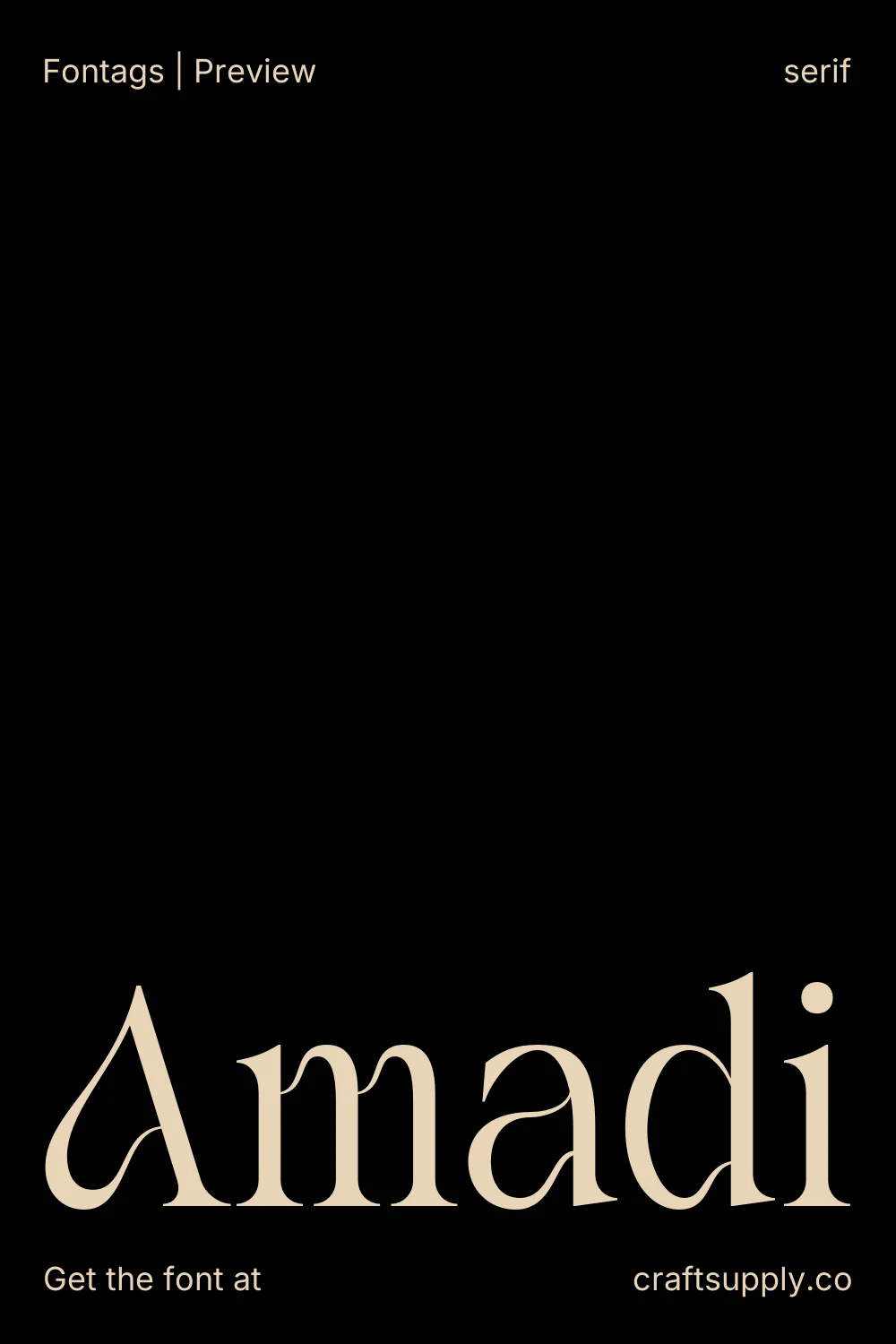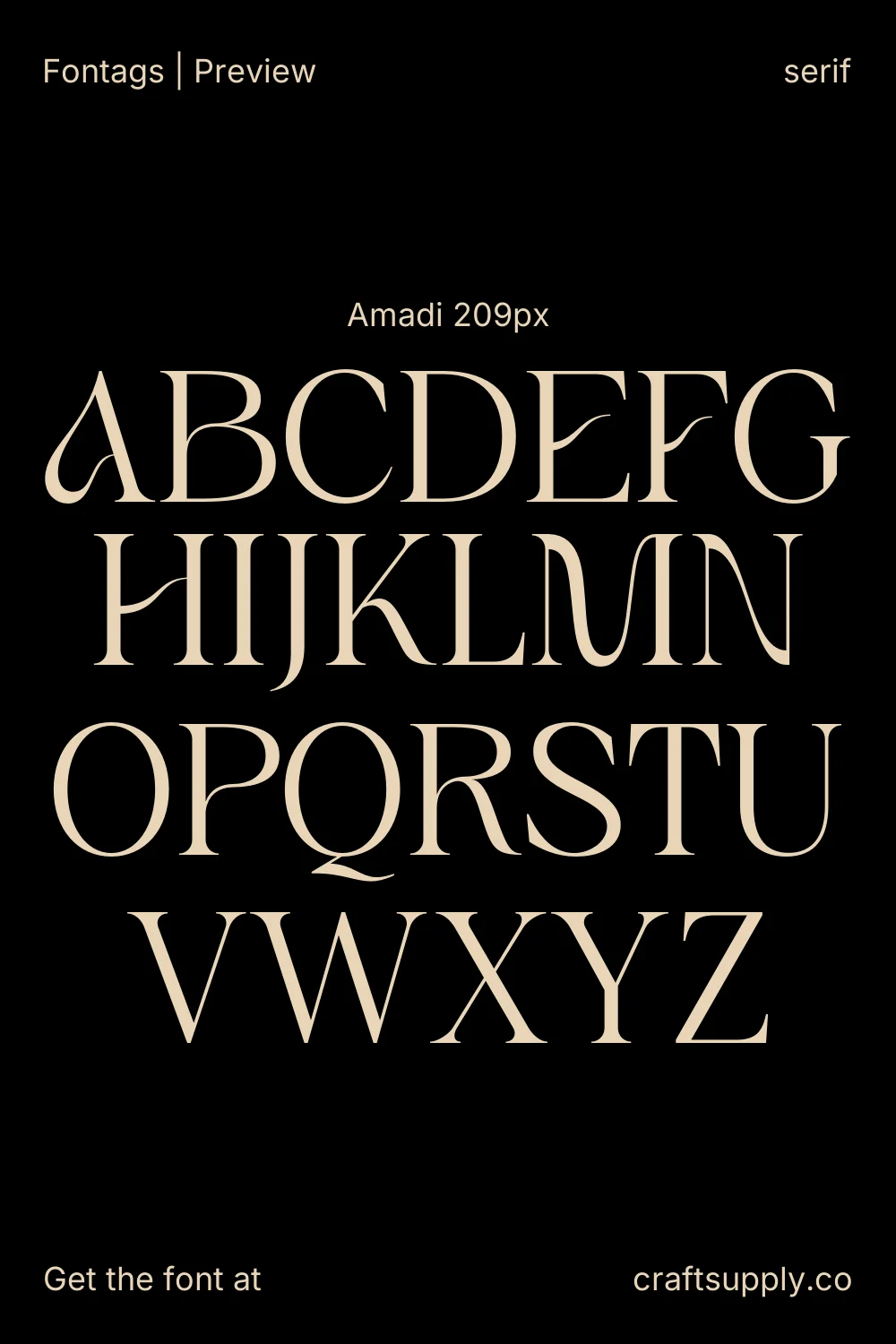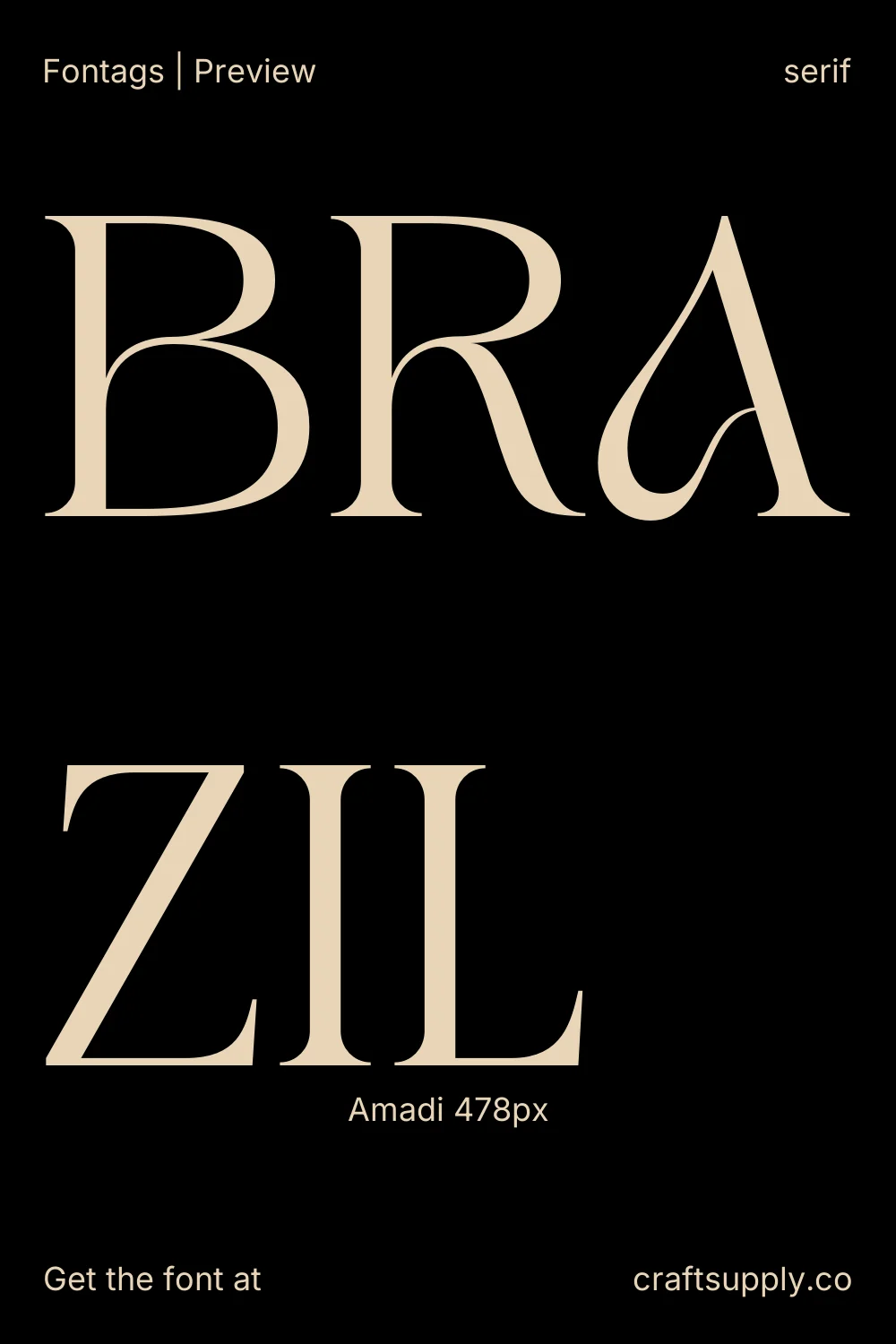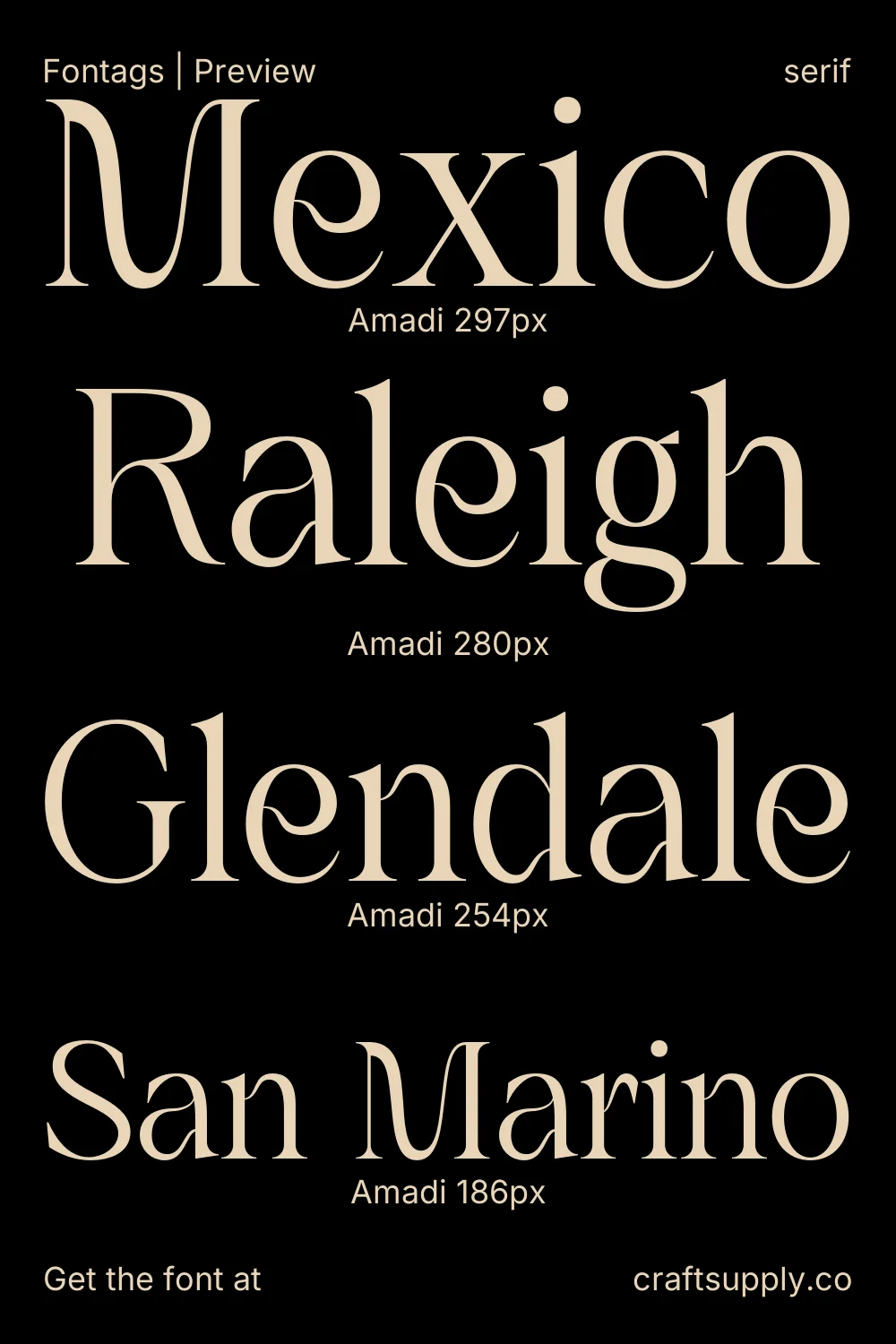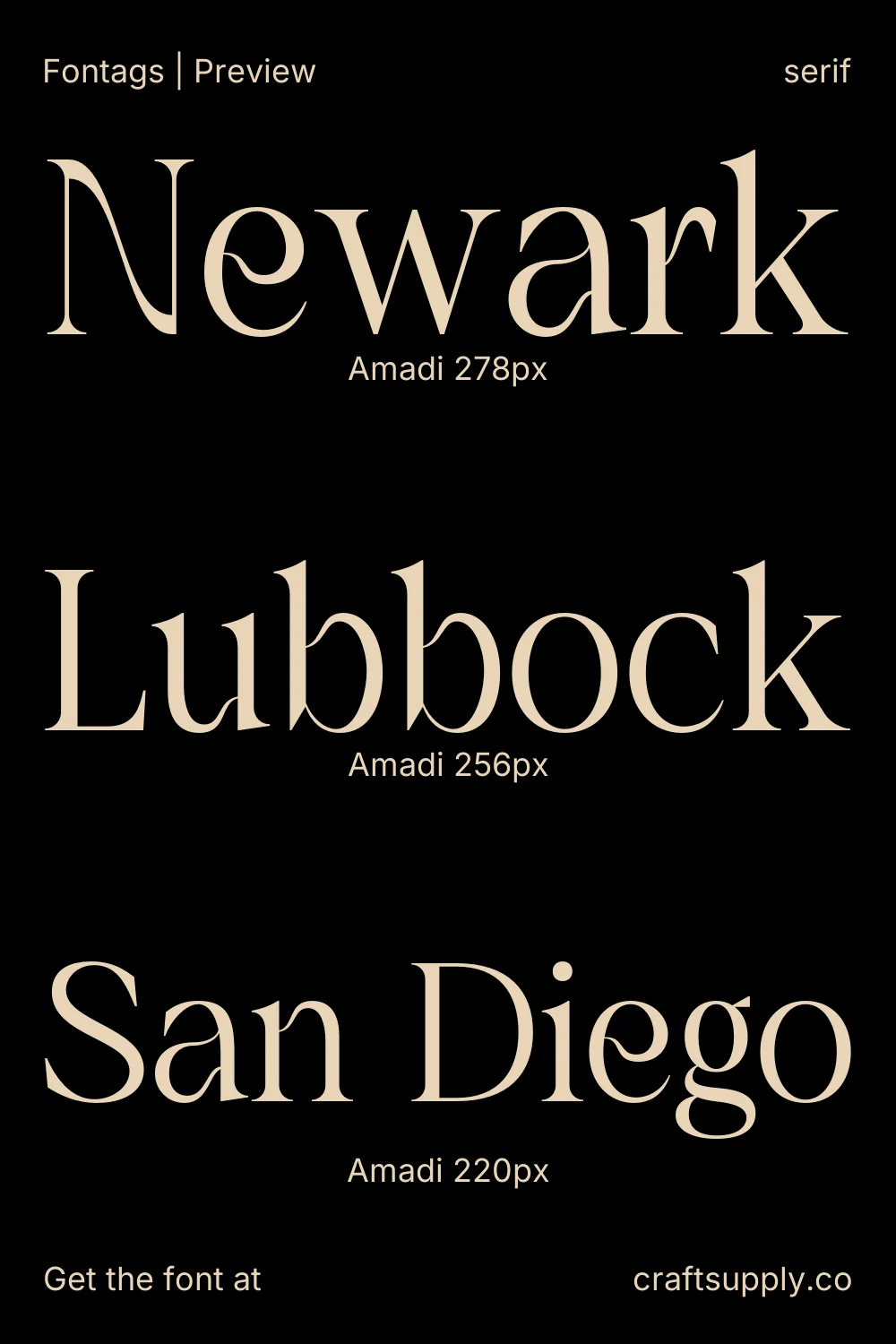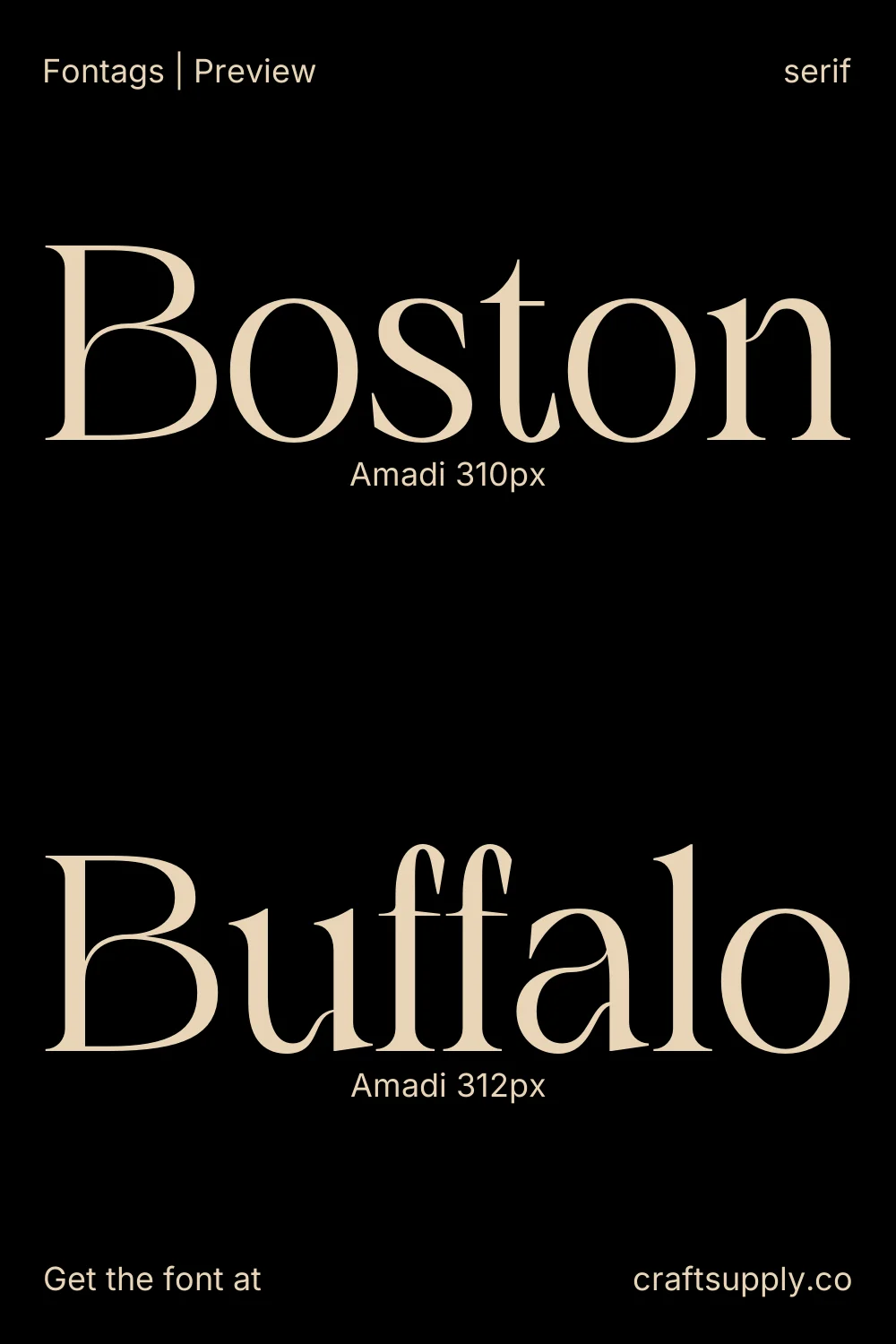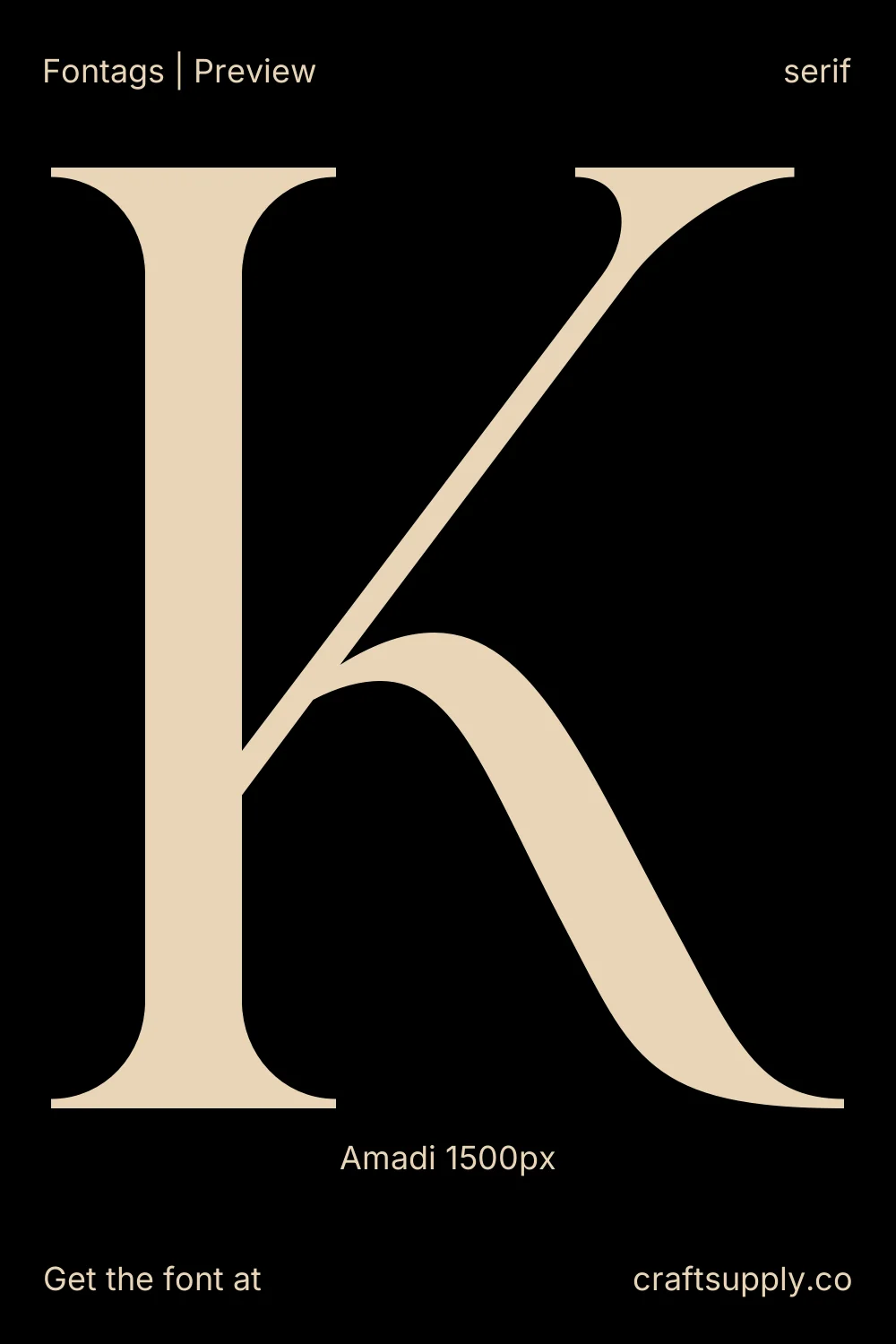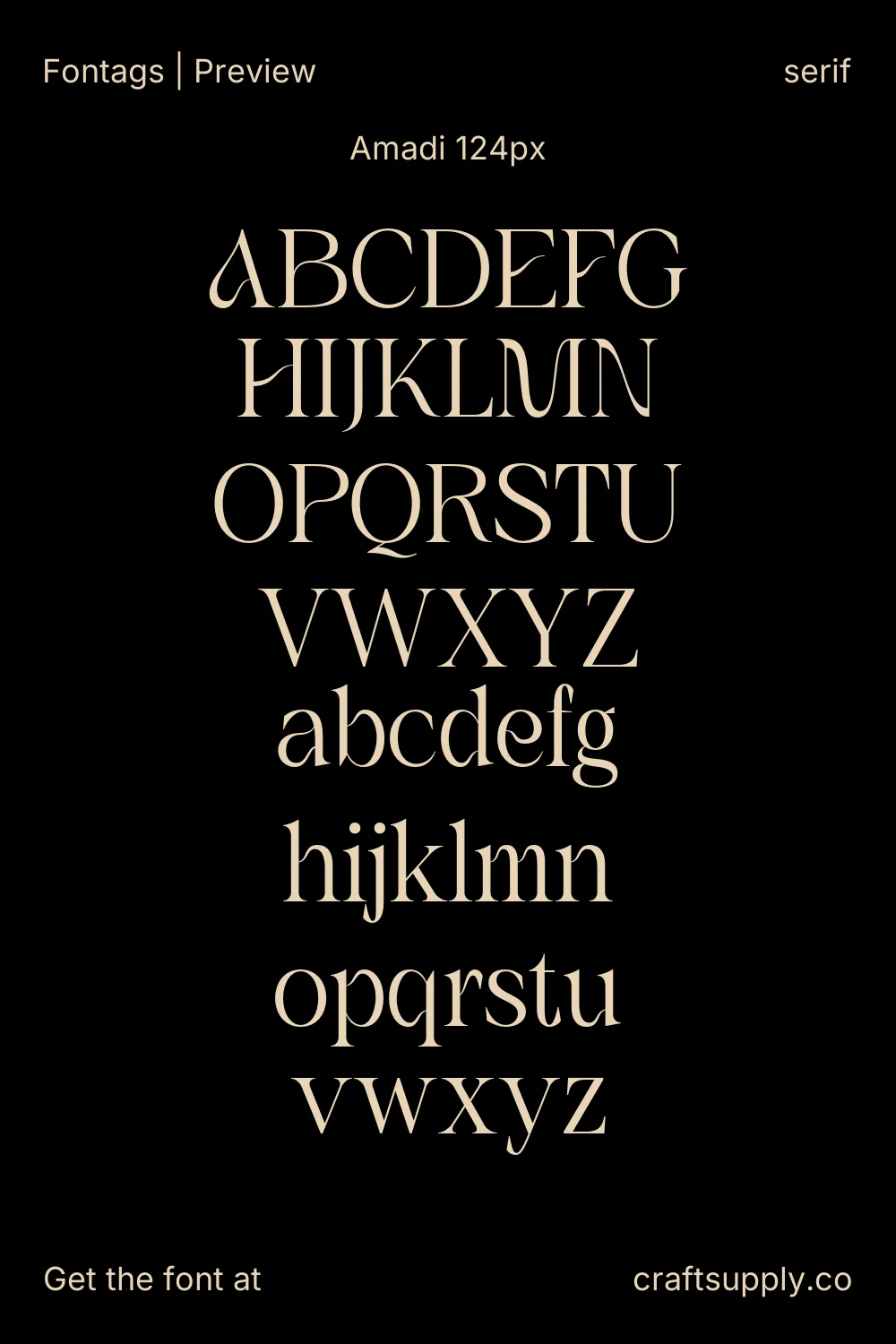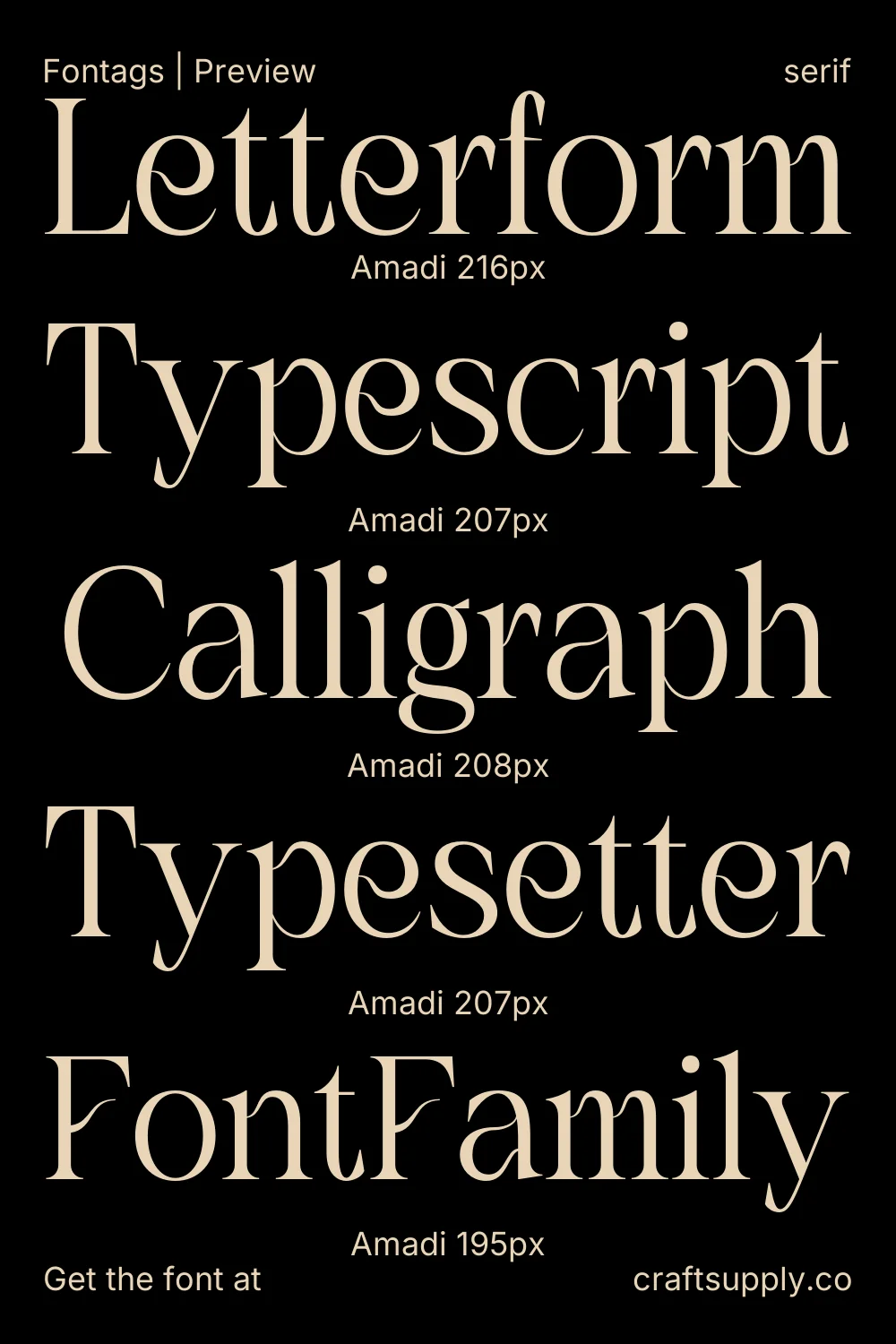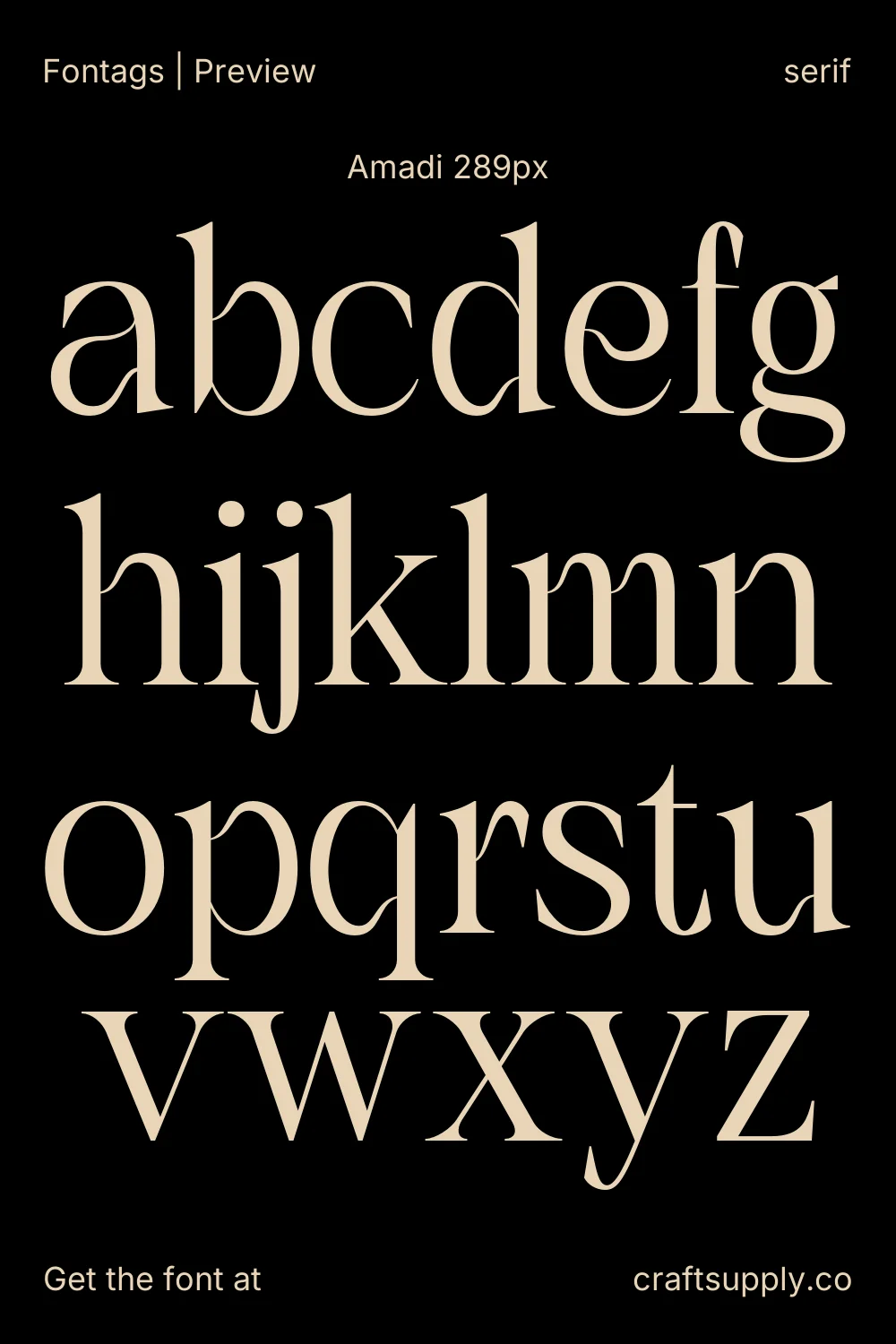
Amadi
Amadi is a quirky serif typeface that brings playful personality and whimsical charm to creative projects. With irregular letterforms and distinctive character shapes, it takes traditional serif design in a fun, unconventional direction. Available in regular and italic styles, Amadi works well for invitations, posters, branding, and any design that wants to stand out with a joyful, individualistic spirit.